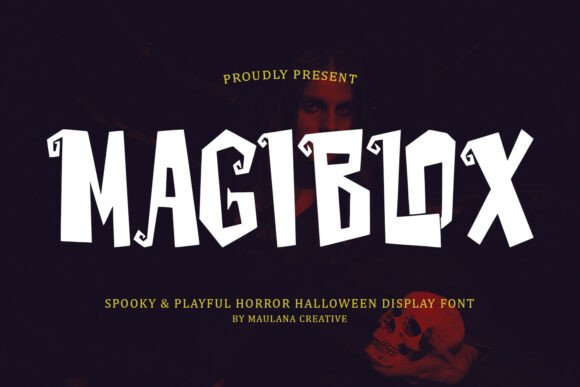
Magiblox: A Display Font That Sets the Mood Before You Read a Word
It was 3 p.m. on a Tuesday — two days before our client’s “Midnight Mysteries” online course launch — and I was tweaking the YouTube thumbnail for the trailer. The image had moody blues, a subtle fog overlay, and a single line of text: “Unlock the Secrets.” But something felt off. The current sans serif font looked clean, sure — but it didn’t whisper “spooky curiosity.” It shouted “corporate webinar.” That’s when I swapped in Magiblox.
Instantly, the tone shifted. Not louder — sharper. The handcrafted unevenness of Magiblox’s letterforms — the slight tilt in the ‘M’, the playful curve of the ‘g’, the jagged serifs on uppercase letters — added narrative weight without a single extra pixel. This isn’t just a display font; it’s a mood translator. Magiblox balances horror, mystery, and playful quirkiness like a seasoned voice actor landing three distinct tones in one sentence. It doesn’t scream “scary.” It leans in and says, “What if…?”
Where Magiblox Earns Its Place in Real Campaign Workflows
In practice, Magiblox shines where attention is fleeting and atmosphere is non-negotiable. Think:
Readability? Yes — With Smart Boundaries
Magiblox is highly legible at display sizes — think 36pt and up on web, 48pt+ for mobile-optimized banners, and anything above 60px for thumbnails. Its open counters (the enclosed spaces in letters like ‘e’ and ‘a’) and generous x-height keep it clear even on low-res screens. But here’s the honest note: don’t use it for body copy, captions under images, or fine print. It’s not built for scanning. We tried it for a 2-line email banner (“Spells & Surprises Await”) — perfect. Tried it for the bullet list below (“• 5 modules • Lifetime access • Bonus workbook”) — instantly unreadable. Stick to short, high-impact phrases: sale tags (“BOO-tiful Sale”), campaign labels (“Season 2 Teaser”), logo-style headers, or decorative chapter titles.
On dark backgrounds, Magiblox sings — its contrast and texture pop without harsh glare. On light backgrounds, it works best with a subtle drop shadow or stroke to lift it off the page. Avoid thin white text on light backgrounds unless you’re using a heavier weight (check what weights are included — Magiblox typically ships with Regular and Bold, sometimes with alternates).
Pairing It Right: Less Is More
Magiblox thrives in contrast. We almost always pair it with a clean, neutral sans serif — think Inter, Manrope, or even system fonts like -apple-system — for all supporting text: subheads, descriptions, CTAs, and disclaimers. That pairing creates breathing room and ensures message clarity isn’t sacrificed for flair. For a more editorial or vintage twist, a low-contrast serif like Lora or Playfair Display can work — but only if the serif is restrained and well-spaced. Avoid script or handwritten fonts alongside Magiblox; the competing personalities clash instead of complement.
When to Pause and Pick Something Else
Magiblox is powerful — but power needs context. It’s not the right tool for:
Think of Magiblox as your go-to for moments where you want the typography to land like a character entrance — memorable, expressive, and unmistakably *on brand* for the vibe you’re curating. It’s not background music. It’s the lead singer stepping into the spotlight.
We’ve since used Magiblox across three campaign phases: the teaser (mysterious one-word reveals), the launch (bold headlines with kinetic motion), and the follow-up (quote graphics from student testimonials styled with vintage parchment textures). Each time, it reinforced the same feeling — not just “this is about mysteries,” but “you belong in this world.” That’s the quiet magic of a well-chosen display font. It doesn’t just say what you mean — it makes people feel why it matters.